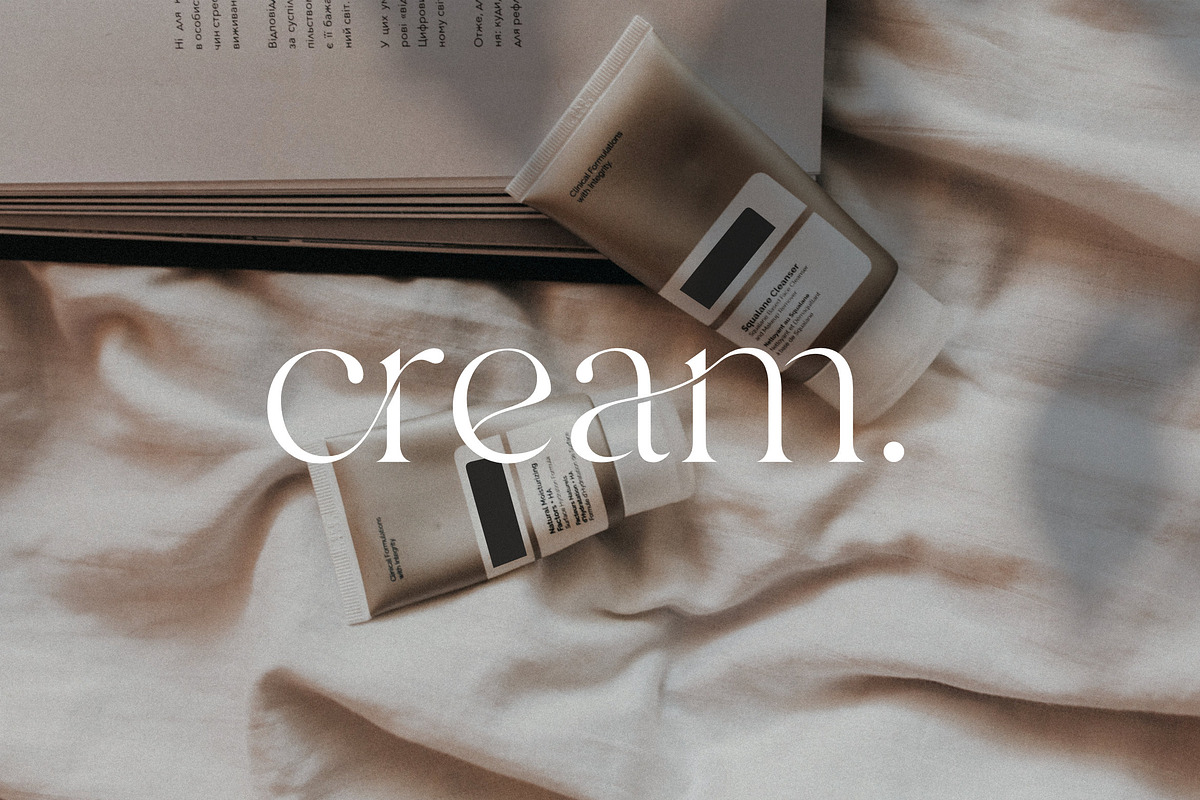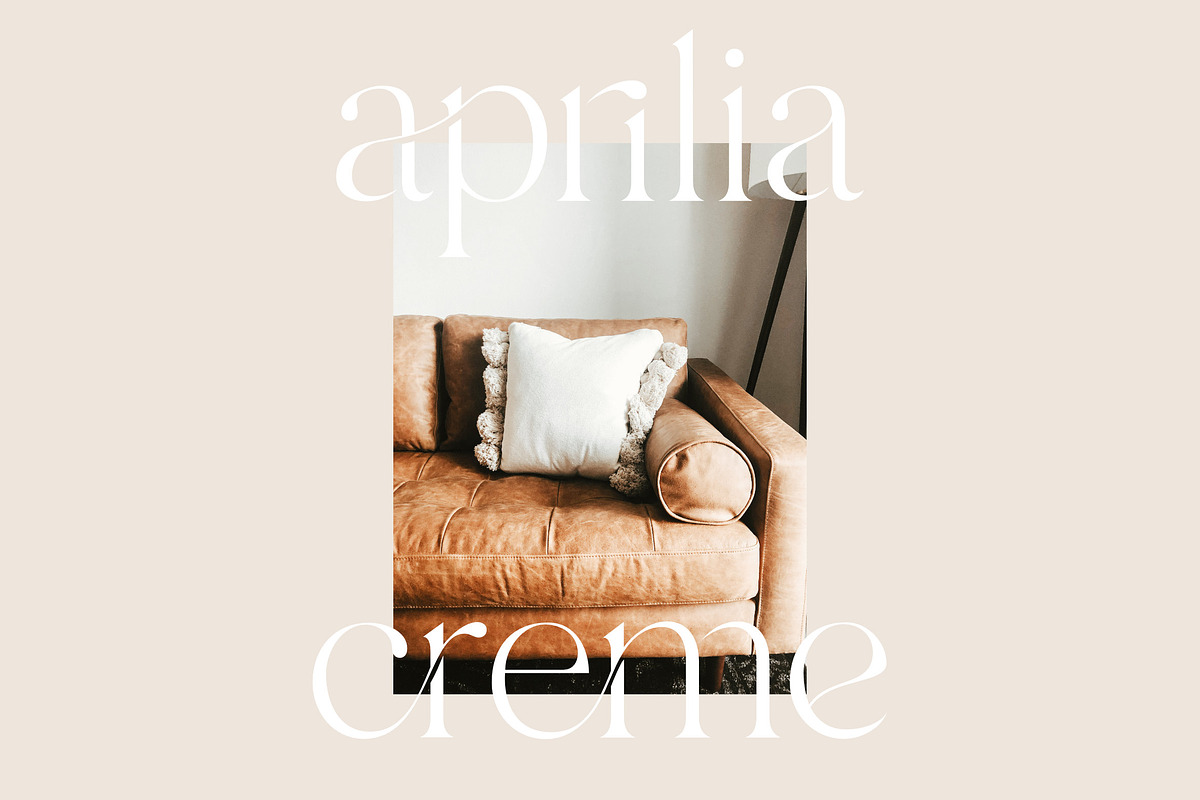
Branch Font
Branch is a elegant ligature serif font by Sans and Sons. This type of font is very suitable for your various needs such as branding projects, logos, social media posts, advertisements, product packaging, photography, wedding designs, watermarks, invitation, product designs, stationery, and any project.
• Alternates
• Ligatures